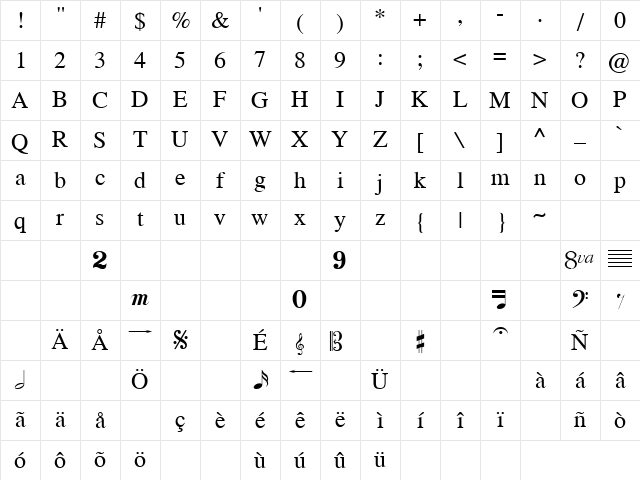
Kings And Queens 3 Regular
Design Context for Kings And Queens 3
Kings And Queens 3 is a composed and adaptable typeface that performs quietly and consistently across a wide range of design contexts.